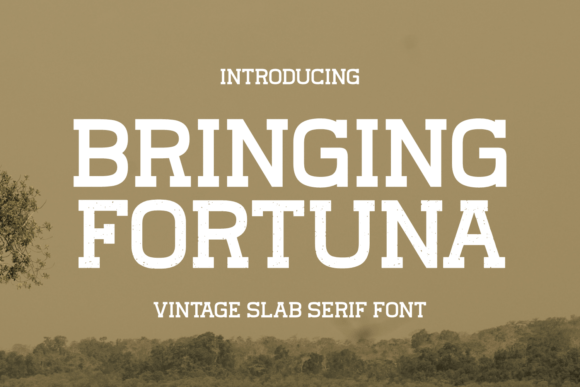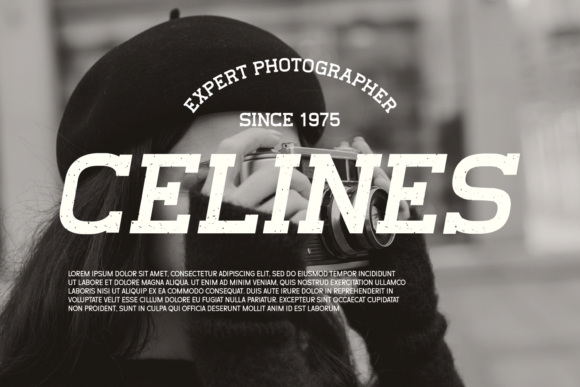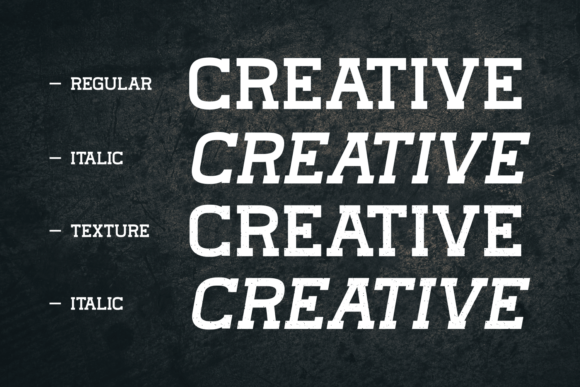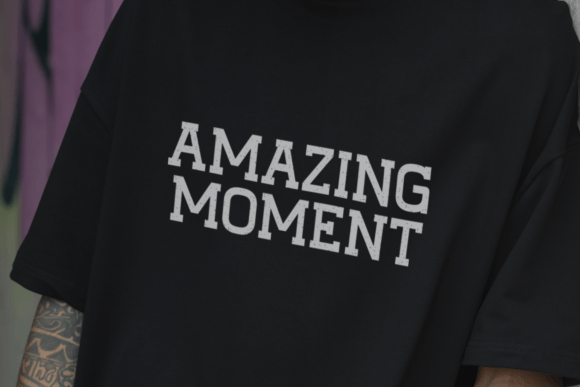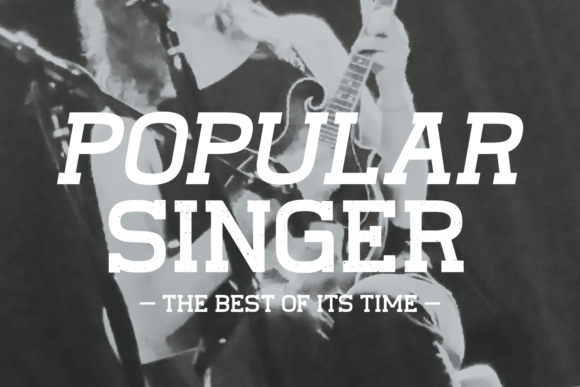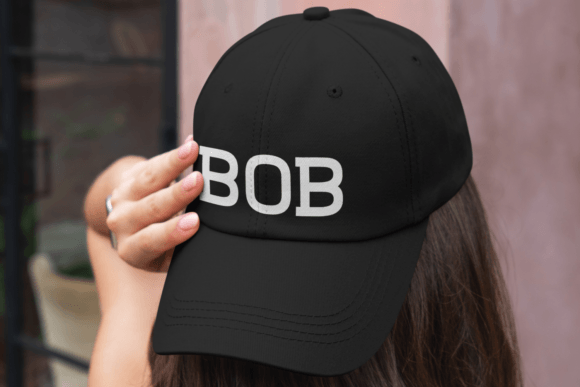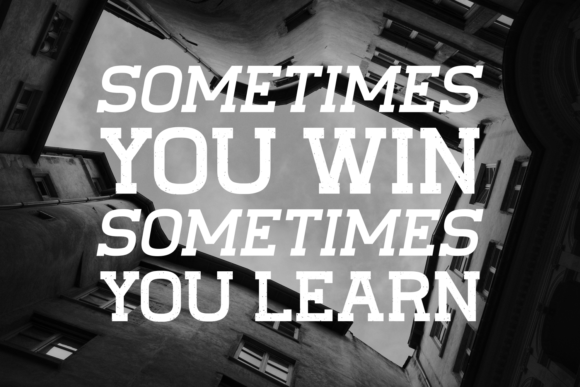
Bringing Fortuna Font
About Bringing Fortuna Font
Bringing Fortuna is a timeless vintage slab serif font that exudes classic charm. With bold, sturdy lettering, it adds a touch of nostalgia to your designs. Ideal for creating a sense of tradition and reliability, this font is perfect for projects that require a vintage aesthetic. Bring a touch of old-world sophistication to your headlines, posters, or branding with Bringing Fortuna’s distinctive and enduring style.